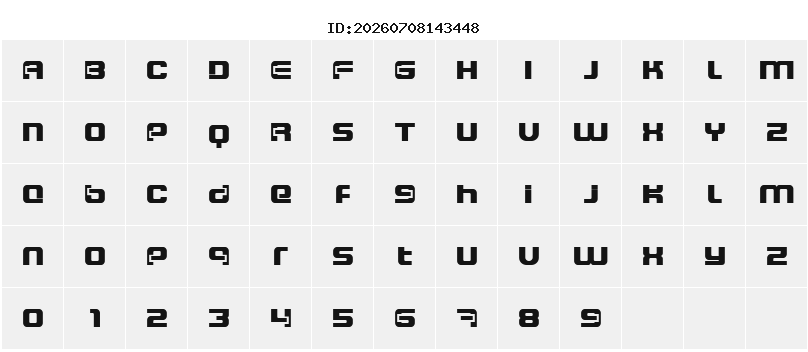
DS_Cosmo Preview
• Font Name: DS_Cosmo
• Font Style: Semi-expanded SemiBold
• Designer: Nikolay Dubina
About DS_Cosmo.ttf
DS_Cosmo.ttf is a modern, elegant sans-serif font designed for ultimate readability and visual harmony. Perfect for branding, headlines, web design, and print materials.